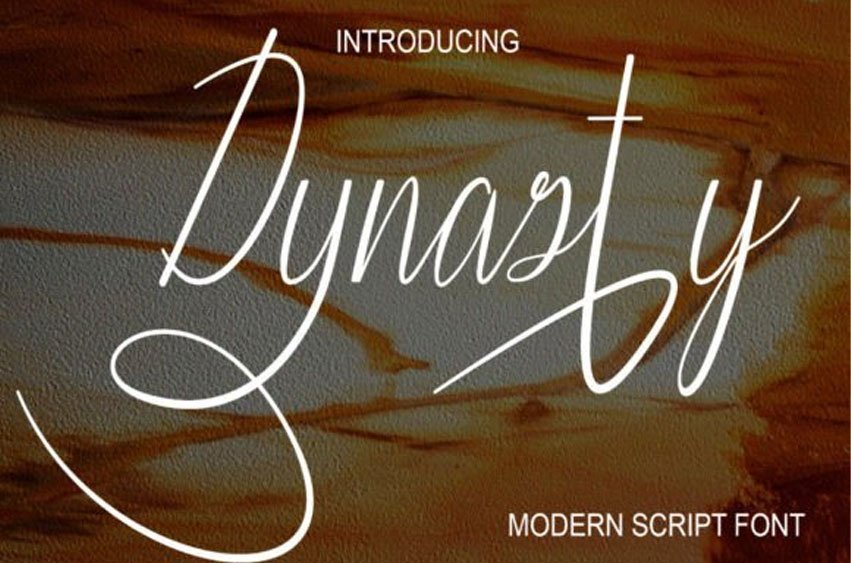
Dynasty Font
Dynasty Font is a thin-lettered script font masterfully crafted to become a true favorite.
Contemporary and fresh, it is perfect for any design you wish to create. Add it to your creative projects and make them outstanding!